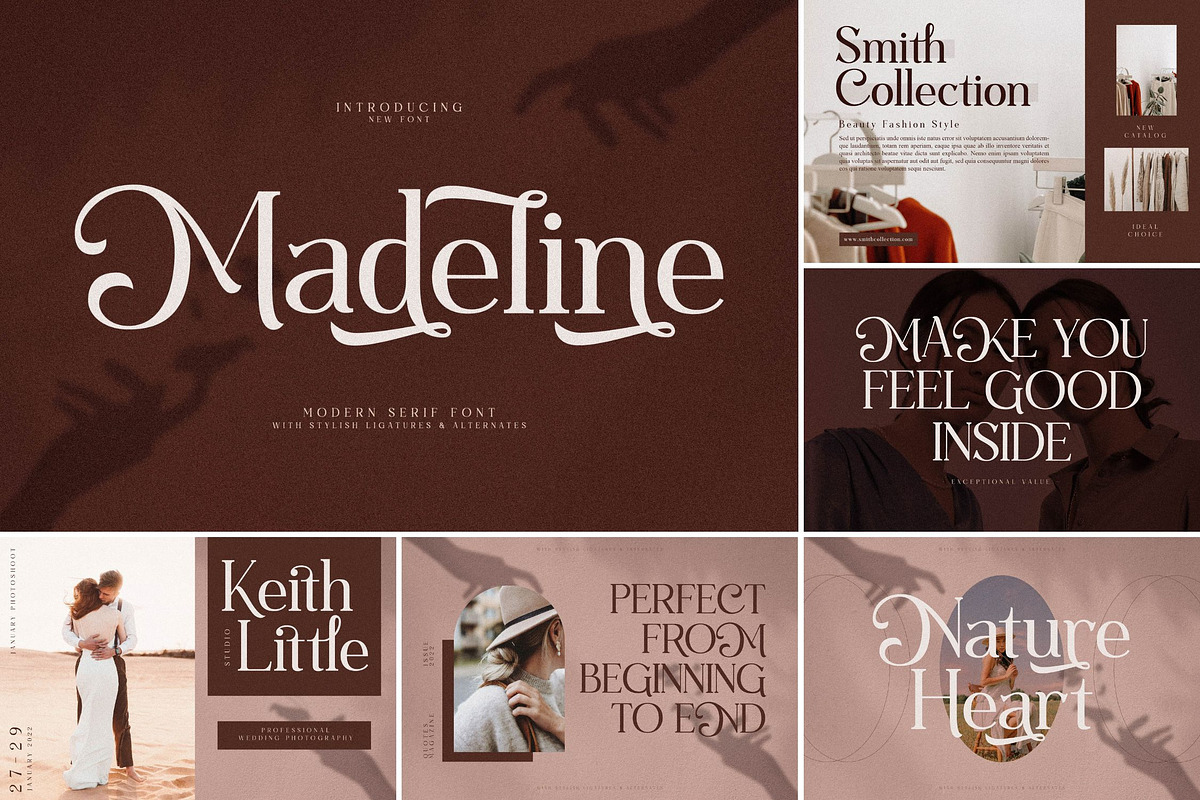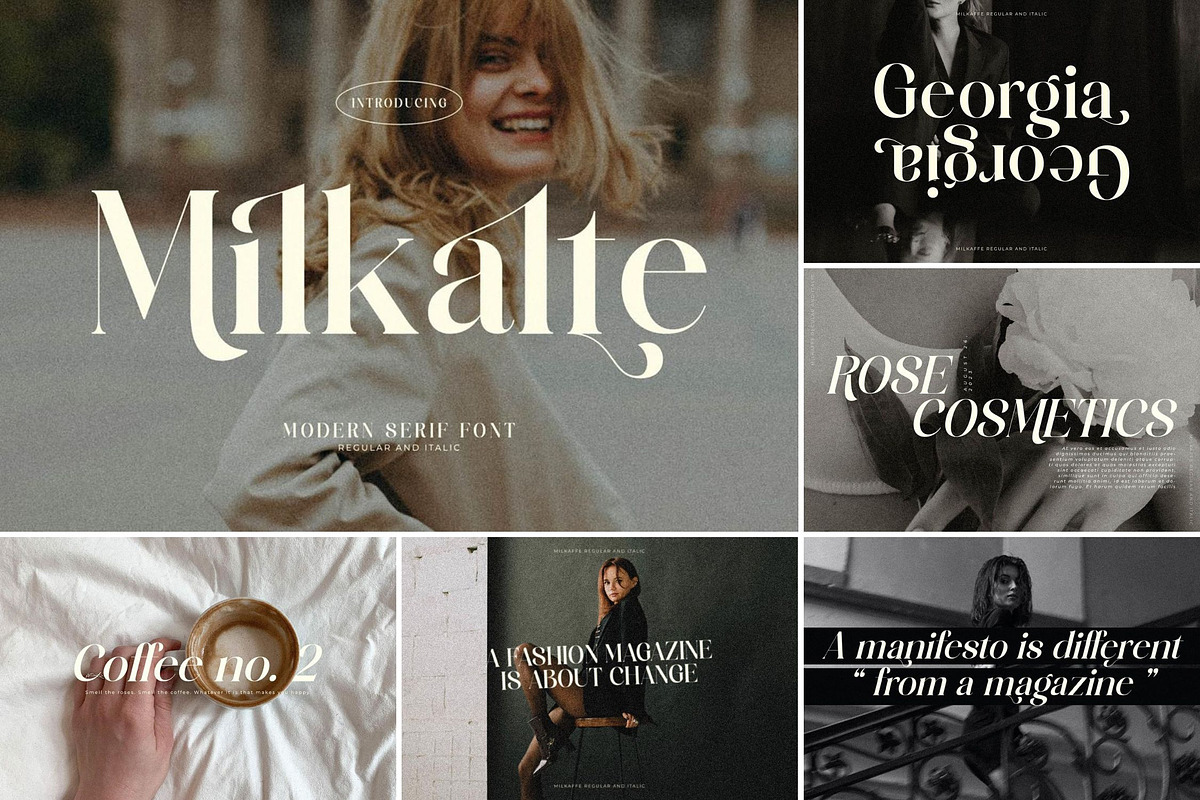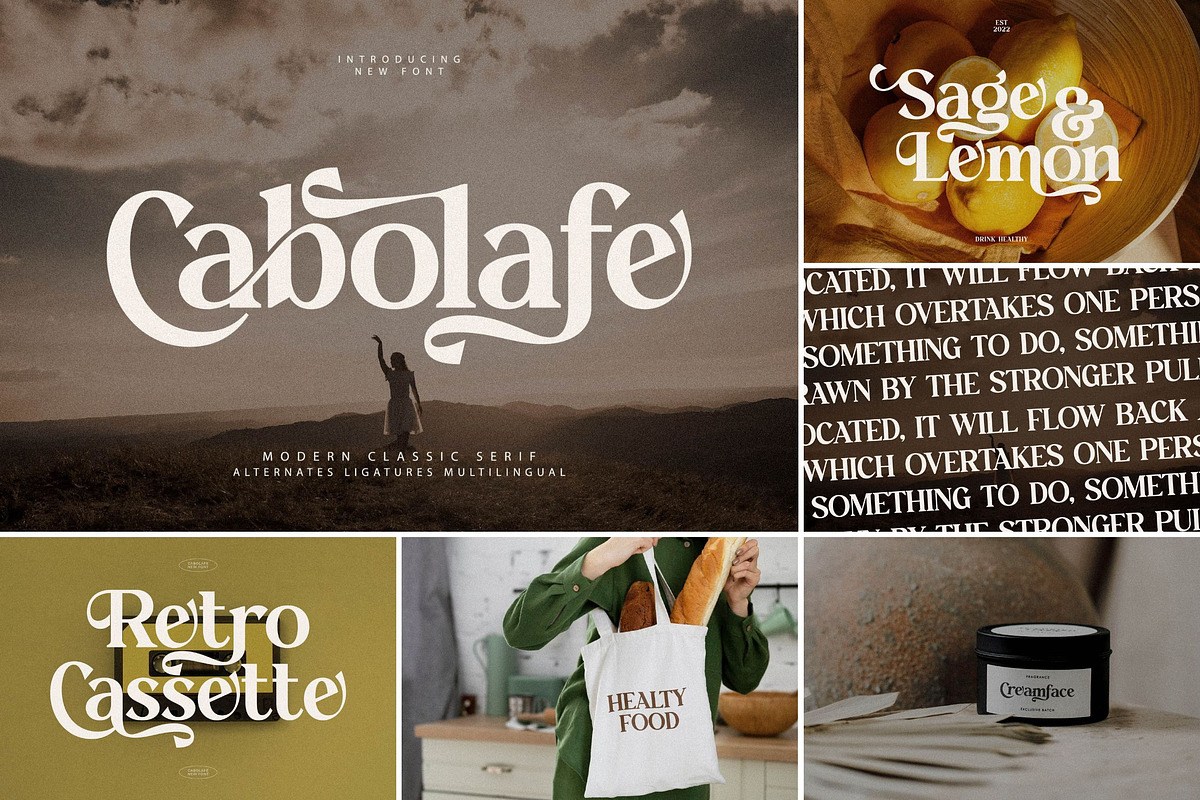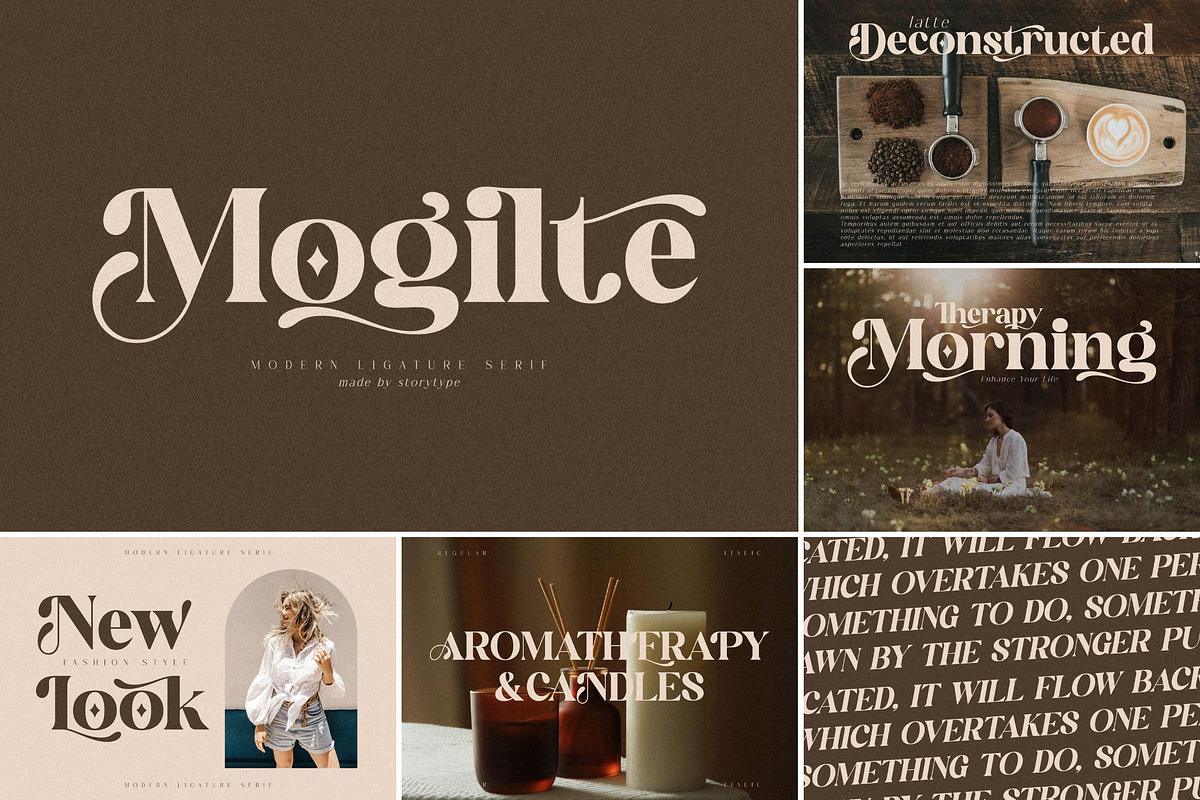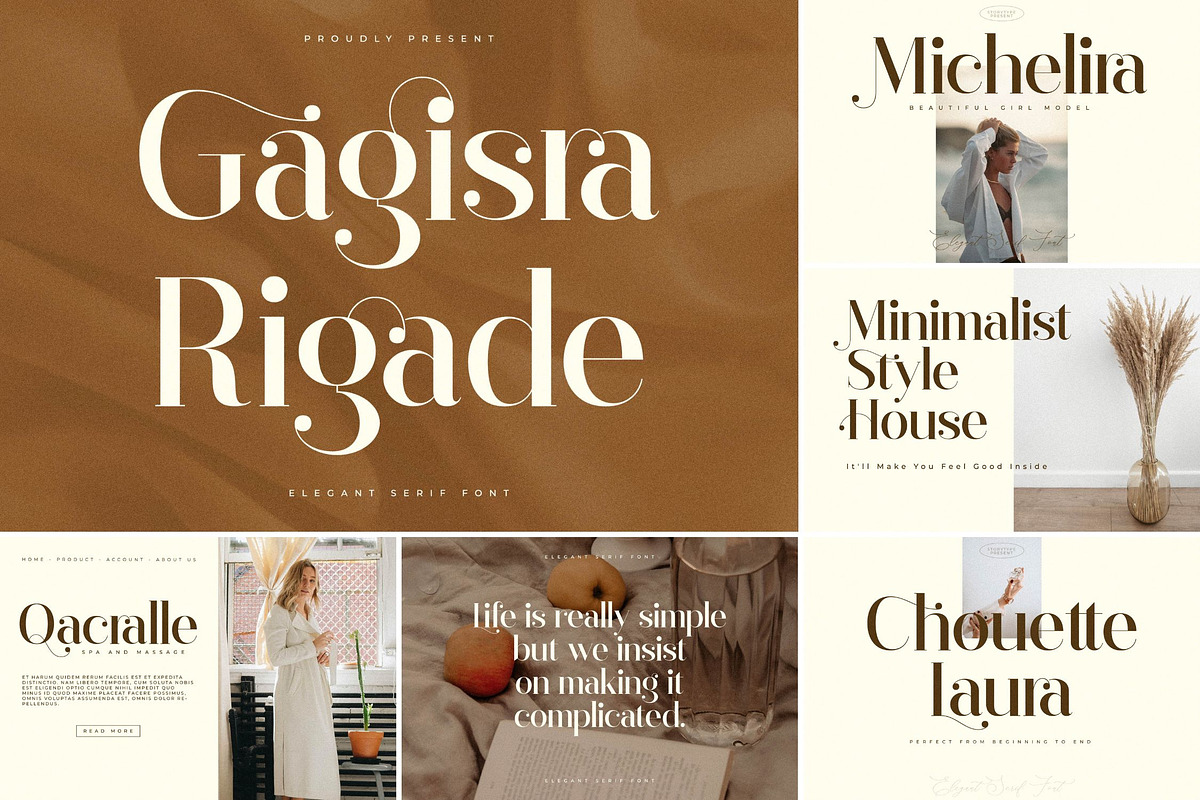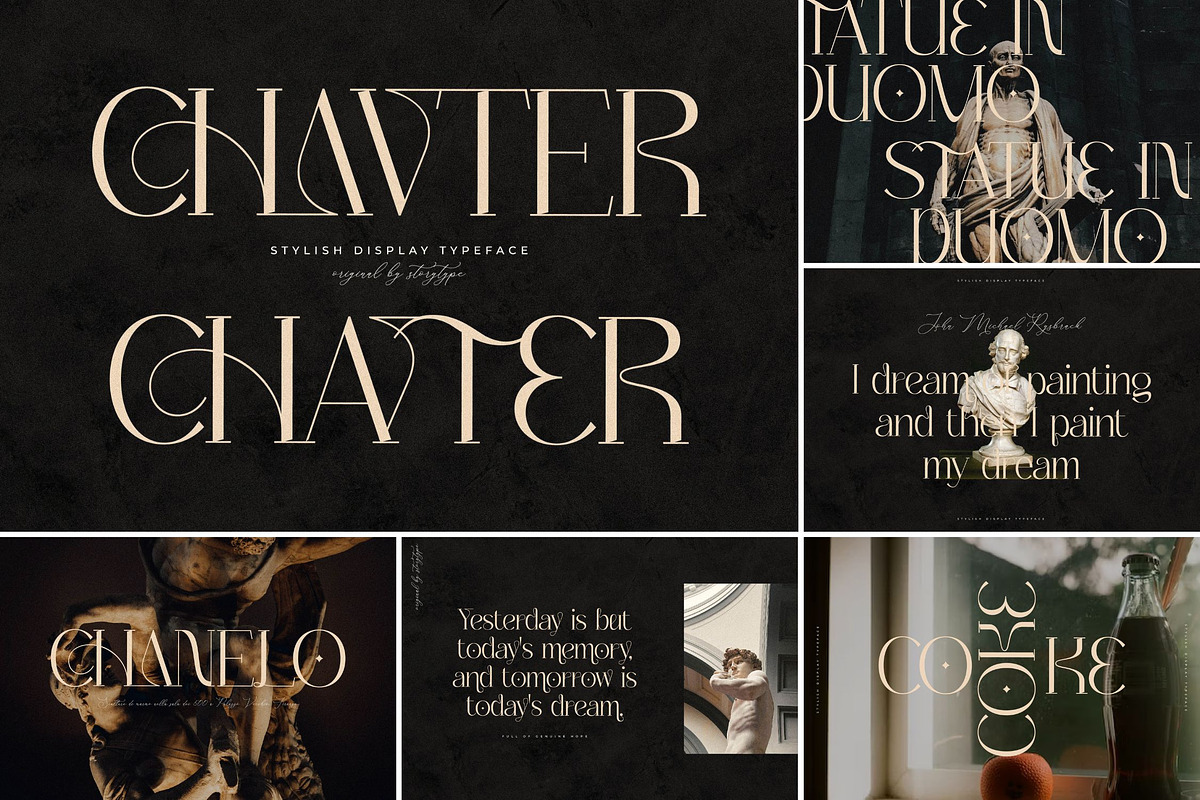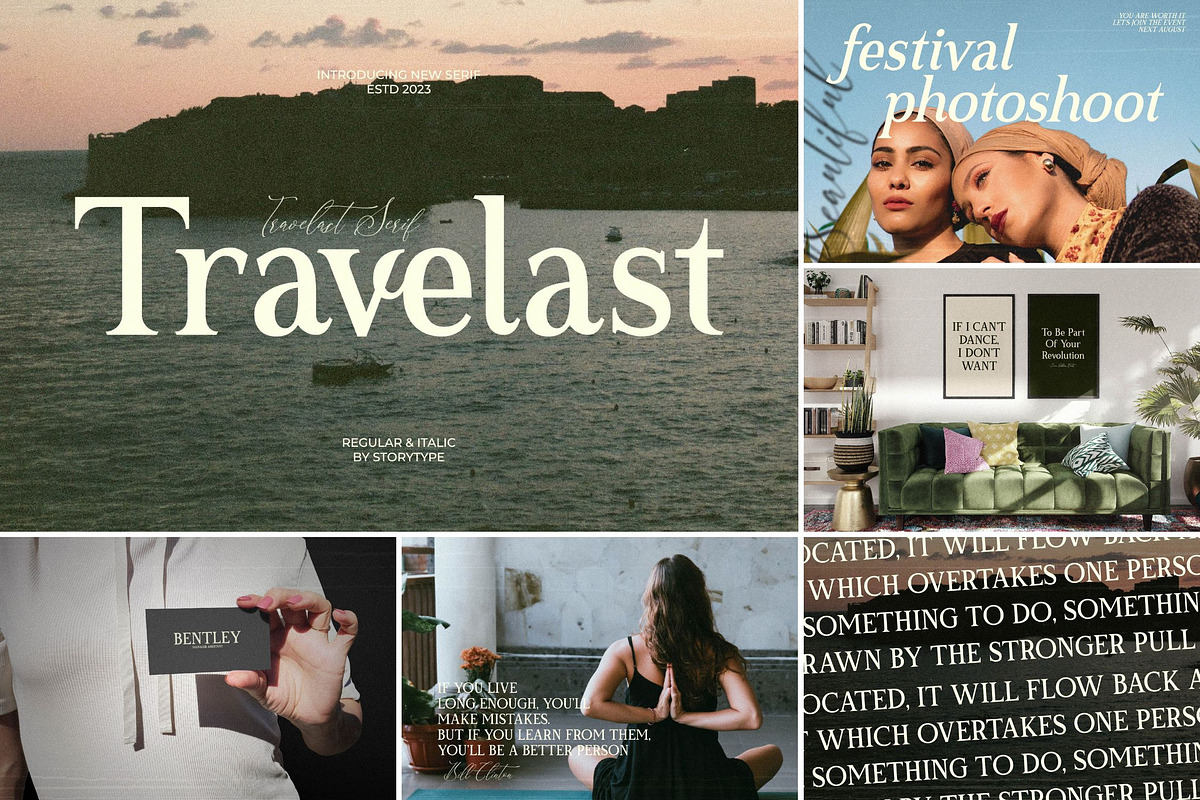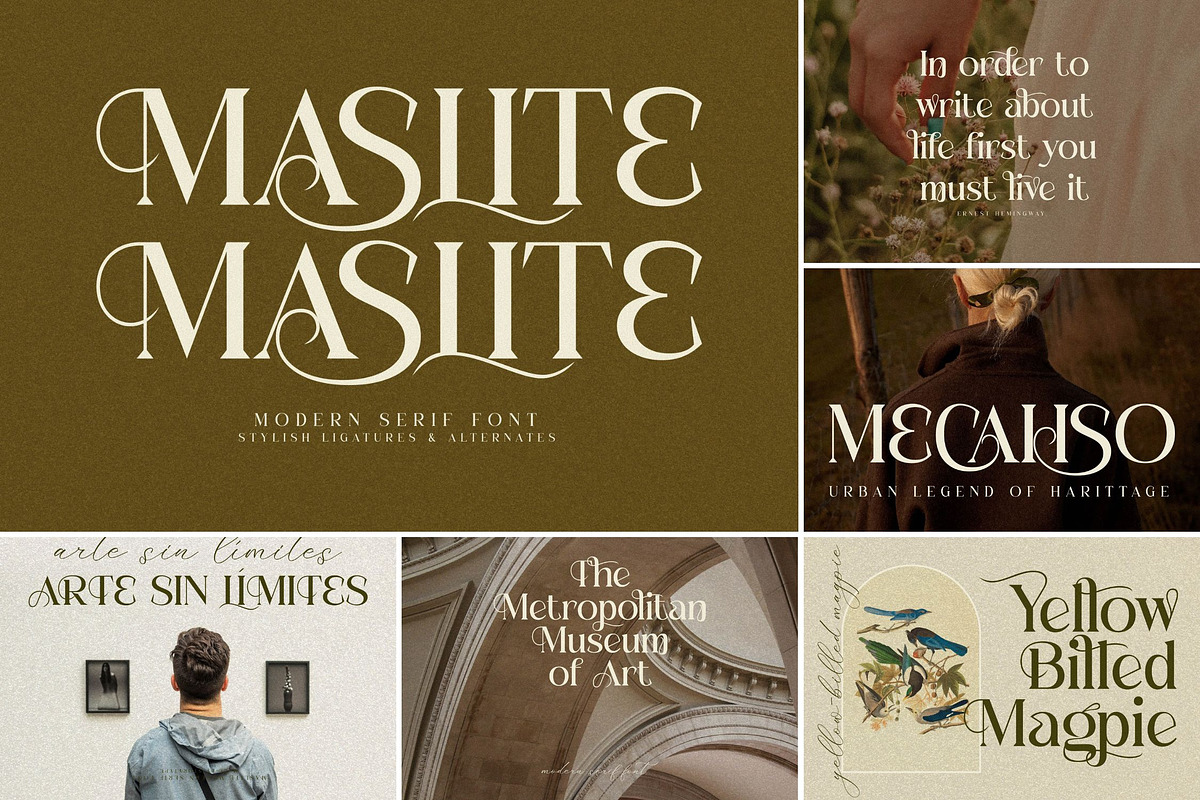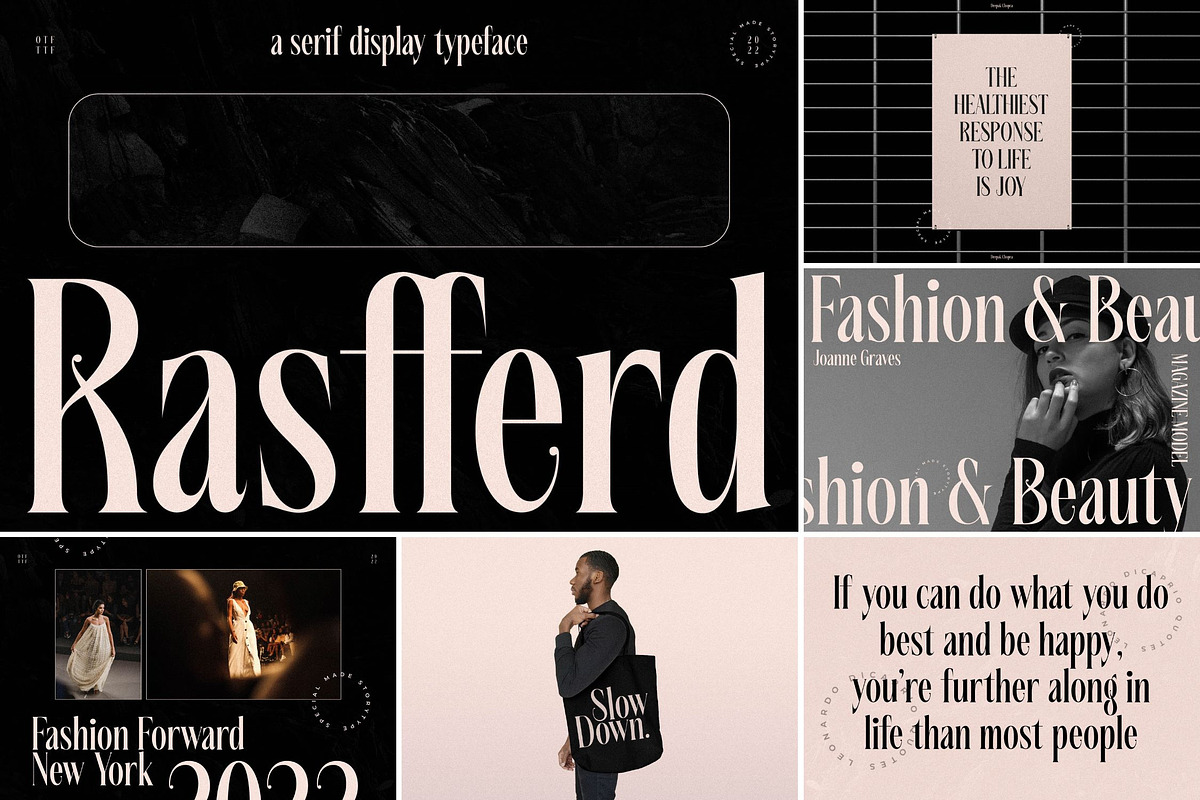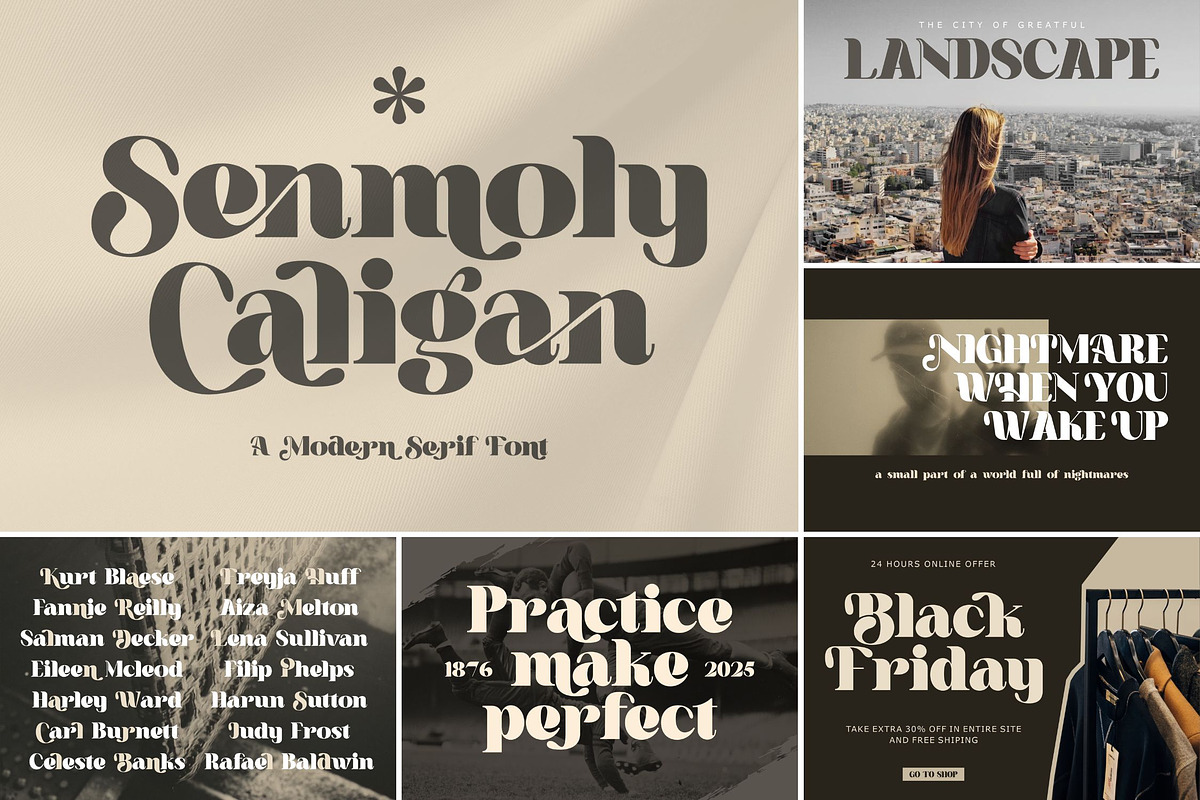
SALE! Modern & Stylish Serif Font
Proudly present Modern & Stylish Serif Font Bundle. Created by Storytype Studio Partnership With Letterena Studios.